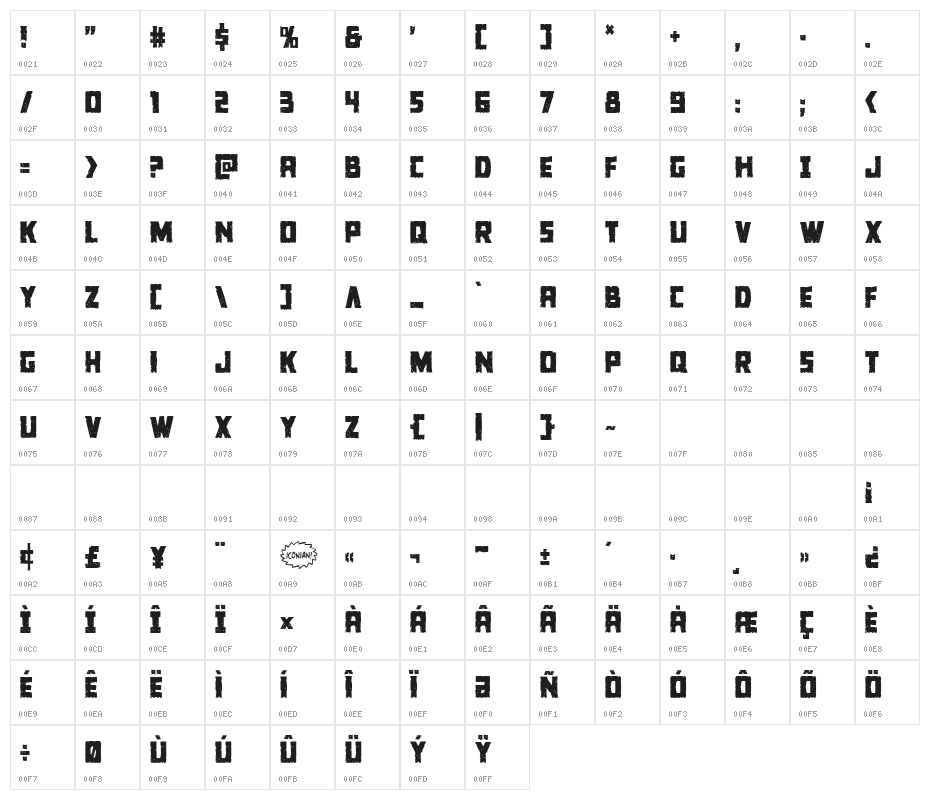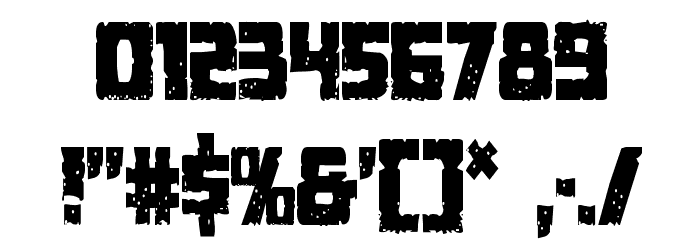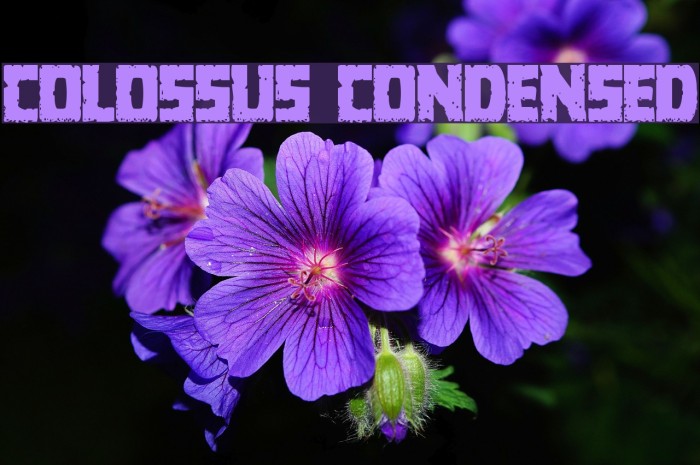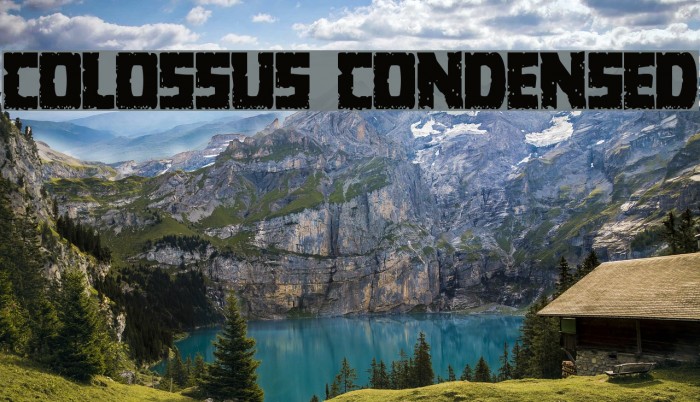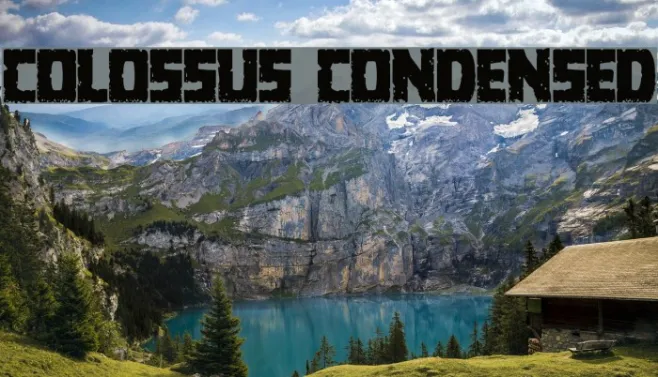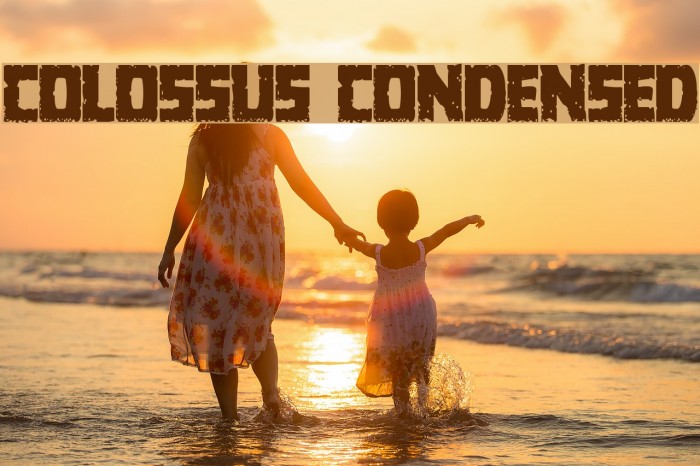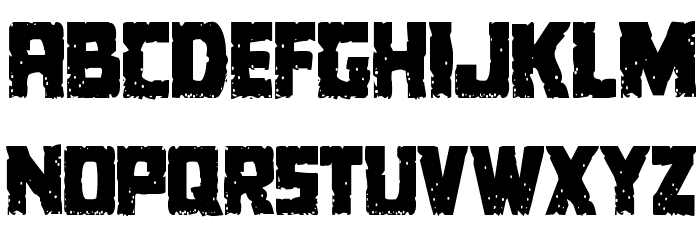
Colossus Condensed Font
✎ Distorted Eroded
Colossus Condensed Description
This font features a bold and rugged design, characterized by its distressed and textured appearance. The letters are blocky and condensed, giving a strong and impactful look. The rough edges and uneven surfaces create a sense of grunge and rawness, making it ideal for projects that require a bold statement. The uppercase and lowercase letters maintain a consistent style, while the numerals and special characters complement the overall aesthetic. This font is perfect for designs that aim to convey strength, edginess, and a touch of rebellion.
| Overall Style | Grunge, Edgy |
| Proposed Projects | Ideal for posters, album covers, branding for edgy products, and any design needing a bold statement. |